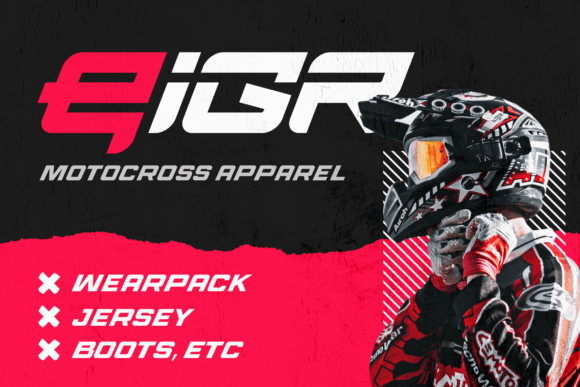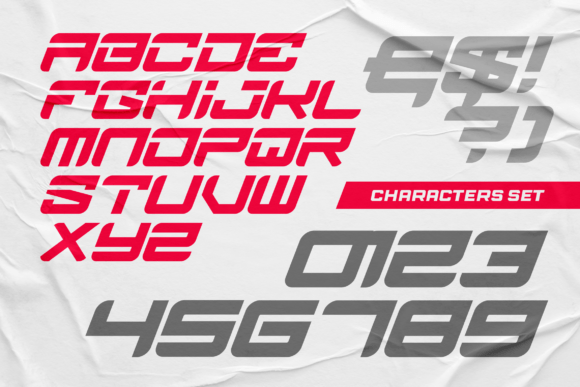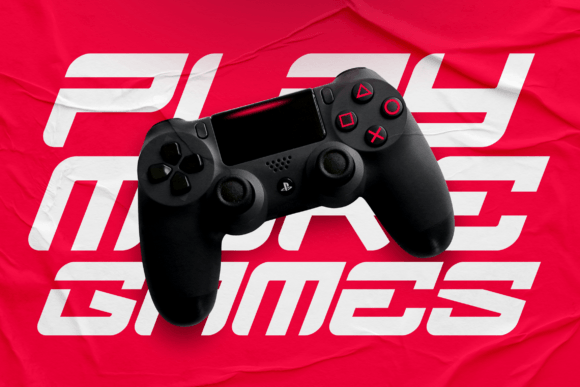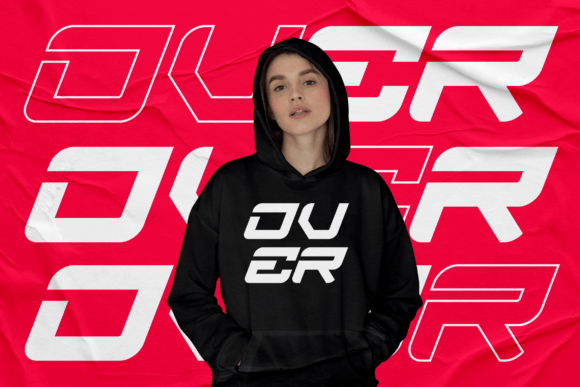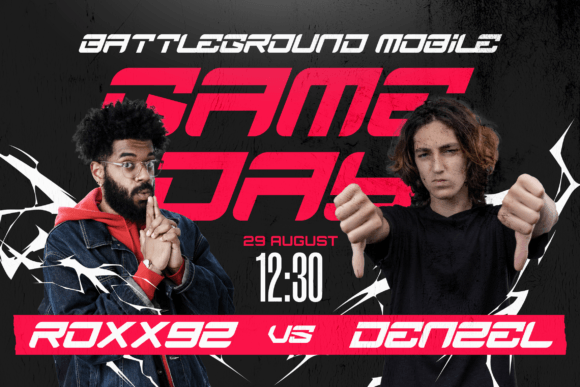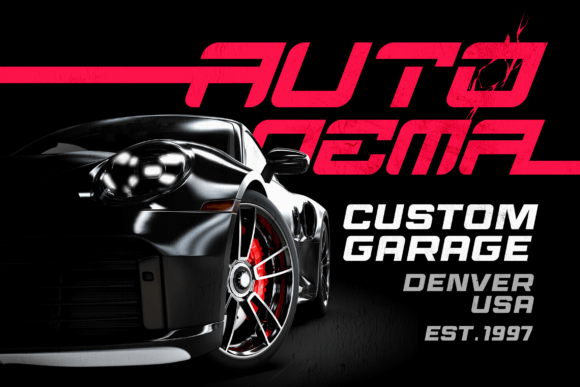
The Ultimate Racing Font: A Deep Dive into Brake Disc Font
I’ll never forget the time I was working on a racing car branding project, and my client asked me to create a bold, eye-catching logo that screamed speed and energy. I scoured the internet for the perfect font, but nothing seemed to fit the bill. That was until I stumbled upon Brake Disc Font. This energetic racing display font has been a game-changer for my design projects, and I’m excited to share my experience with you.
An Honest Review of Brake Disc Font
• ✨ High-energy vibe: Brake Disc Font exudes a sense of speed and dynamism, making it perfect for racing sports or automotive-related projects.
• ✅ Versatile: This font is suitable for a wide range of applications, including headlines, jerseys, logos, branding, posters, packaging, and advertising.
• 💥 Attention-grabbing: The unique design of Brake Disc Font makes it impossible to ignore, ensuring your project stands out from the crowd.
While Brake Disc Font is an excellent choice for many projects, there are a few things to keep in mind:
• 🤔 Limited legibility: Due to its bold and stylized design, Brake Disc Font may not be the best choice for body text or small font sizes.
• ⚠️ Glyph limitations: Some users have reported that the font lacks certain glyphs or special characters, which may limit its use in certain contexts.
The Backstory of Brake Disc Font
Brake Disc Font was designed with speed and energy in mind. The font’s creator, a passionate designer and racing enthusiast, wanted to capture the essence of the racing world in a single font. Inspired by the sleek lines and bold shapes of racing cars, Brake Disc Font was born.
Q: What type of projects is Brake Disc Font best suited for?
A: Brake Disc Font is perfect for racing sports or automotive-related projects, including logos, branding, posters, packaging, and advertising.
Q: Can I use Brake Disc Font for body text?
A: While Brake Disc Font is an excellent choice for headlines and titles, it may not be the best choice for body text due to its bold and stylized design.
Q: Does Brake Disc Font support OpenType features?
A: Yes, Brake Disc Font supports OpenType features, including stylistic alternates, glyphs, and ligatures.
Q: Is Brake Disc Font suitable for digital applications?
A: Absolutely! Brake Disc Font is versatile and can be used for both print and digital applications, including social media graphics, website headers, and more.